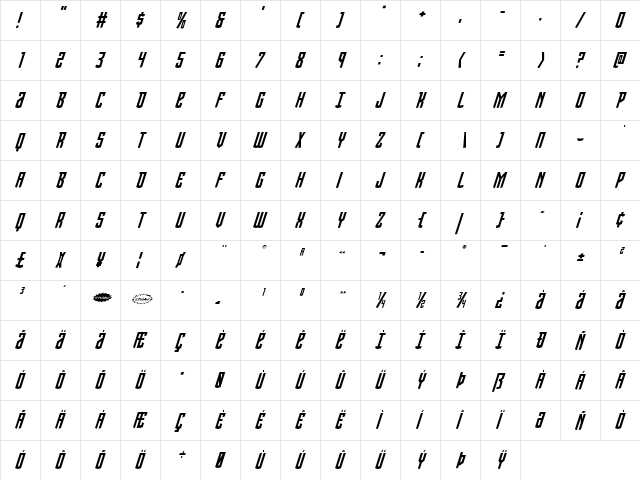
Viceroy of Deacons Italic Italic
Design Context for Viceroy of Deacons Italic Typeface
Viceroy of Deacons Italic is a composed and adaptable typeface that performs quietly and consistently across a wide range of design contexts. The dynamic lean of this cut emphasises speed and emphasis in any layout.
Pro Tip: Try Viceroy of Deacons Italic for annotation and caption copy alongside an upright companion — the contrast in angle creates a dynamic but ordered typographic system.